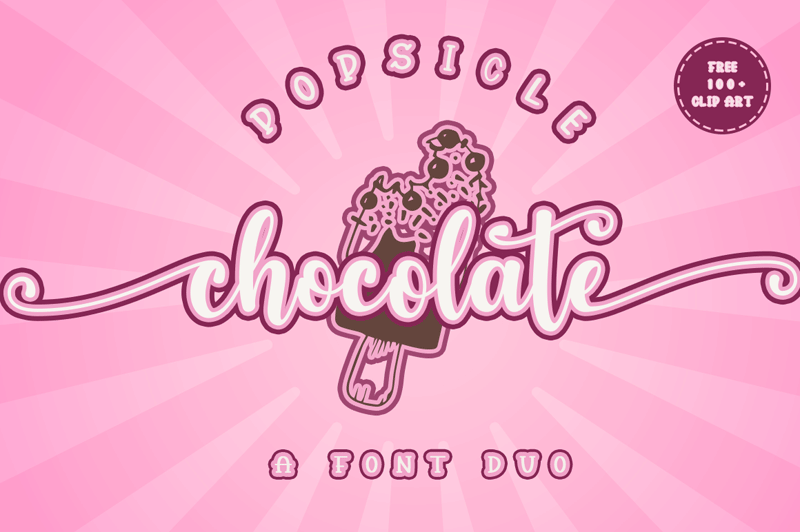
Chocolate Font
Chocolate Font is perfect for confectionery branding, bakery logos, dessert menus, chocolate shop packaging, sweet product labels, cafe marketing materials, candy store signage, gourmet food branding, artisan chocolate packaging, pastry shop designs, indulgent social media graphics, and any design project requiring a delicious and inviting aesthetic.
What makes Chocolate Font exciting is its delectable character that instantly evokes sweetness and indulgence through visual design. The font's rich letterforms capture the luxurious essence of premium chocolate, making it ideal for brands in confectionery and gourmet food industries seeking to stimulate appetite appeal and create irresistible visual experiences. Its tempting personality communicates quality and pleasure, helping designers craft content that connects with audiences' love for sweet indulgence and culinary delights.
The Chocolate Font family typically includes uppercase and lowercase characters, numerals, punctuation marks, and decorative elements that enhance its sweet and delicious appeal.